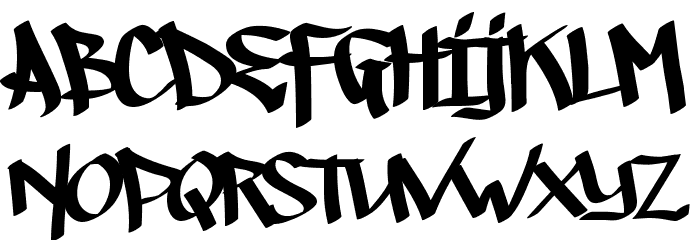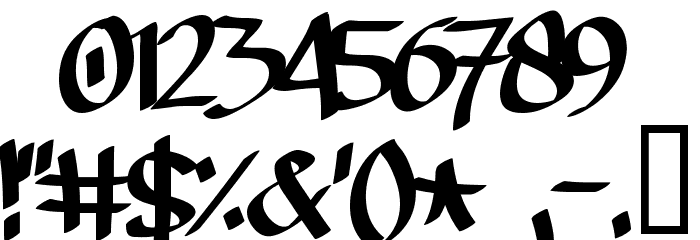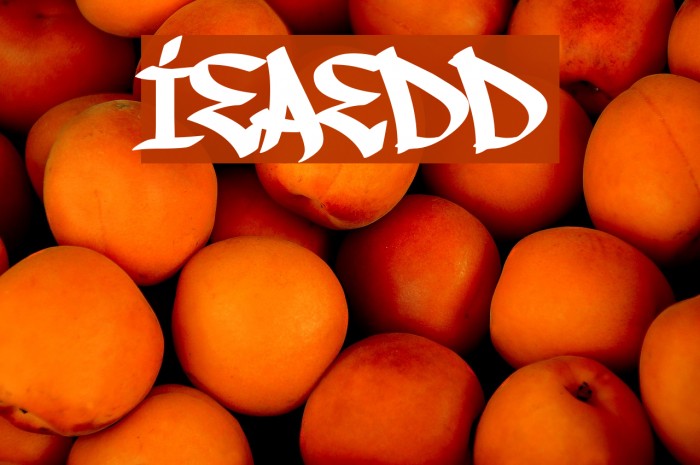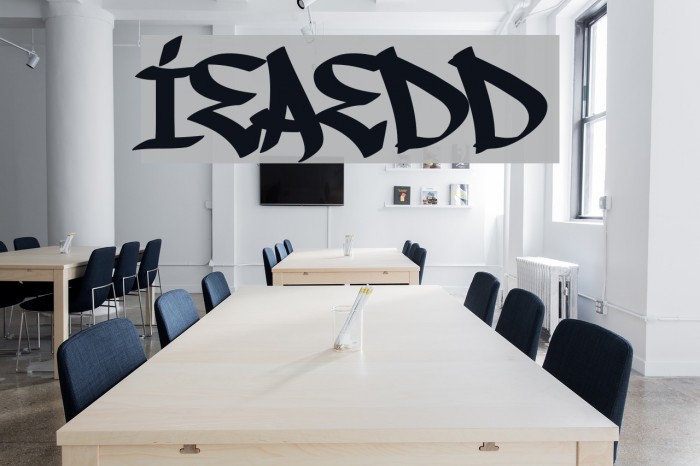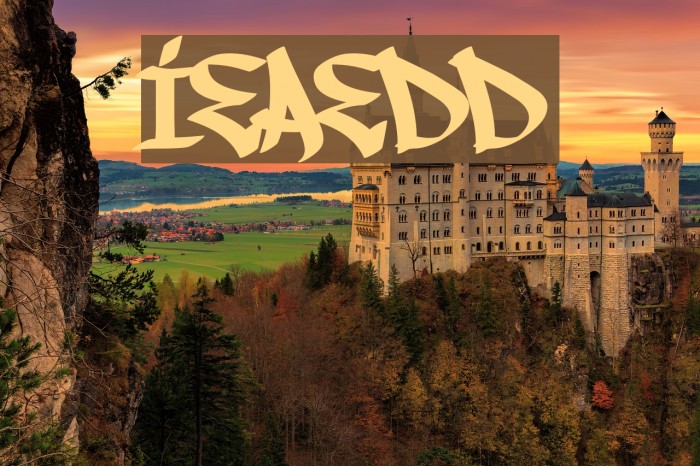
IllegalEdding Font
This font exhibits a bold and dynamic style, reminiscent of graffiti or street art. The characters are sharply angled with a strong, energetic flow, creating a sense of movement and urgency. The uppercase and lowercase letters maintain a consistent style, with exaggerated curves and sharp edges. Numbers and special characters follow the same aesthetic, ensuring a cohesive look across all elements. The font's unique design makes it stand out, ideal for projects requiring a bold statement.
A bold, graffiti-inspired font with sharp angles and dynamic flow.
- Proposed Projects: Ideal for urban-themed designs, streetwear branding, music album covers, and event posters.